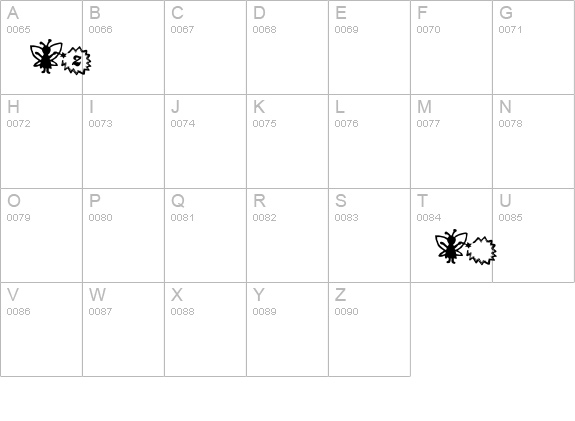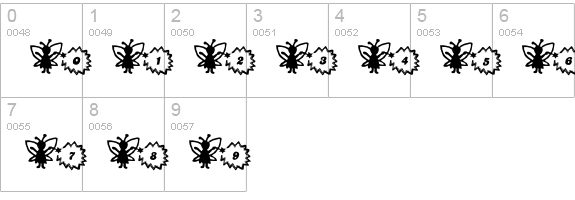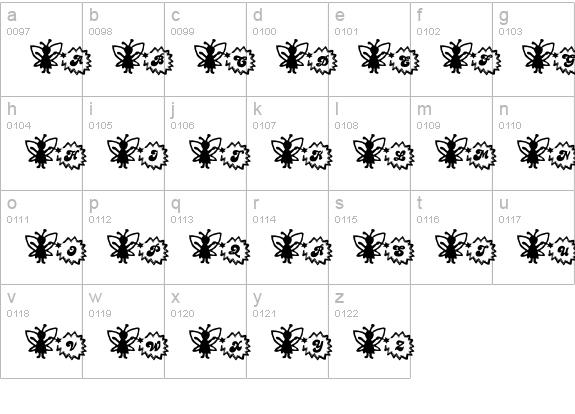
Fairy Sparkle Font Details
Fairy Sparkle font is a whimsical and enchanting typeface that will add a touch of magic to any project. With its delicate curves and sparkling details, this font is perfect for creating designs that evoke a sense of wonder and fantasy. Whether you're working on a children's book, party invitation, or greeting card, Fairy Sparkle font will bring your creations to life with its ethereal charm. Best of all, Fairy Sparkle font is available for free download at FontsMarket.com. Simply visit the website to access this enchanting font and start incorporating its fairy-like beauty into your designs today. Let Fairy Sparkle font transport you to a world of imagination and creativity, where anything is possible with just a touch of magic.